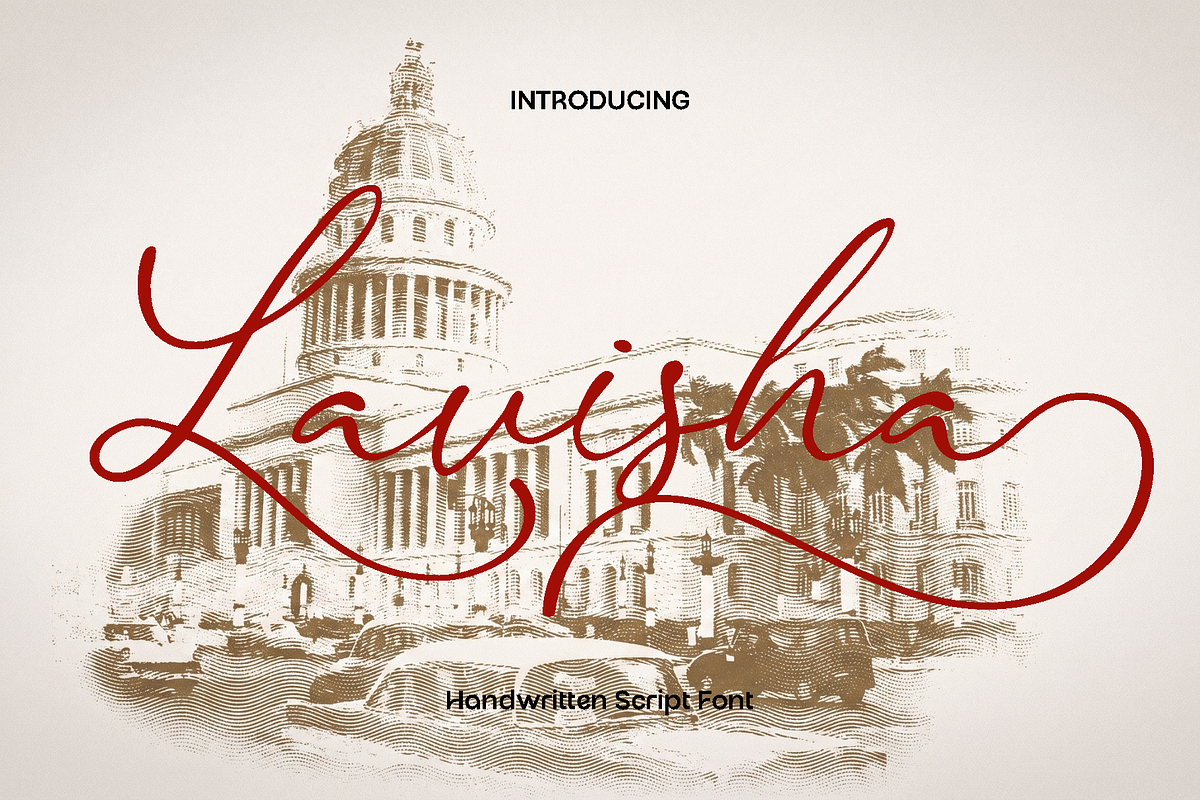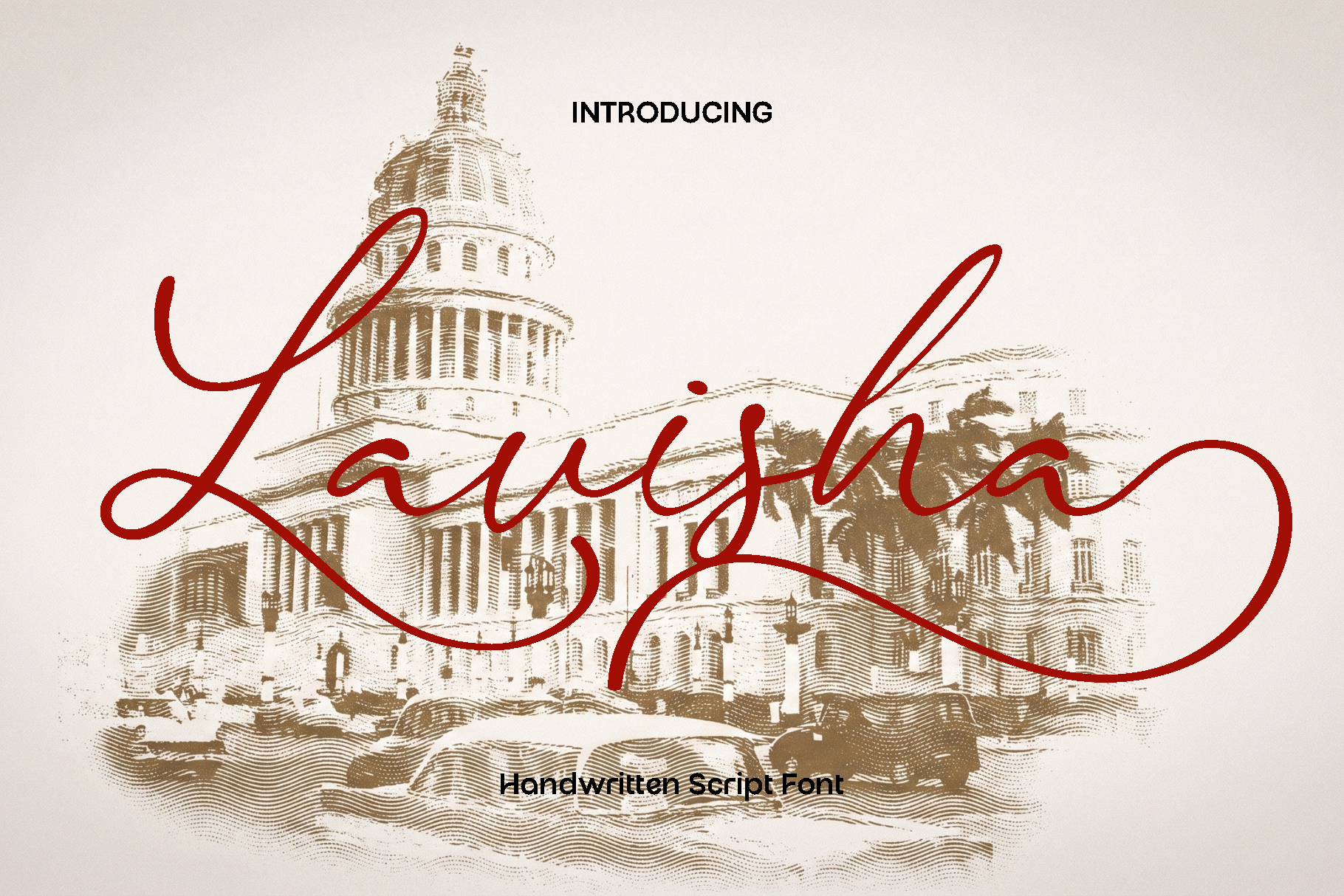
Lavisha - Handwritten Script Font
Lavisha is a beautifully handcrafted script font created with a traditional and personal touch. Inspired by natural handwriting and expressive calligraphy, Lavisha captures the warmth and authenticity of pen on paper. Every stroke is carefully drawn to reflect a smooth flow and elegant rhythm, giving your designs a soft and inviting personality that feels both artistic and genuine.
This font shines in projects that require a human touch and emotional connection. Lavisha is perfect for wedding invitations, branding, logos, social media content, product packaging, greeting cards, and lifestyle designs. Its graceful curves and fluid letterforms create a charming and stylish look that enhances both modern and classic compositions. Whether used for bold statements or delicate accents, Lavisha adds a sense of creativity and sophistication to your work.
Lavisha feels warm, expressive, and timeless. It is designed for creators who want to bring elegance and individuality into their typography. With its stylistic variations and natural flow, Lavisha allows you to create unique and eye catching designs that leave a lasting impression.
Lavisha Handwritten Script Font Features:
• Uppercase and lowercase characters
• Numerals and functional punctuation
• Stylistic Set 1 and Stylistic Set 2
• Smooth handwritten script style
• OpenType features
• Multilingual support